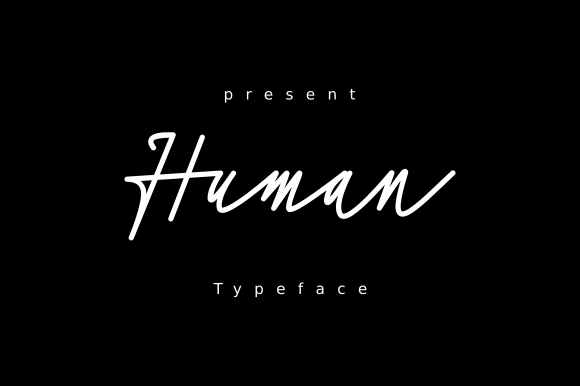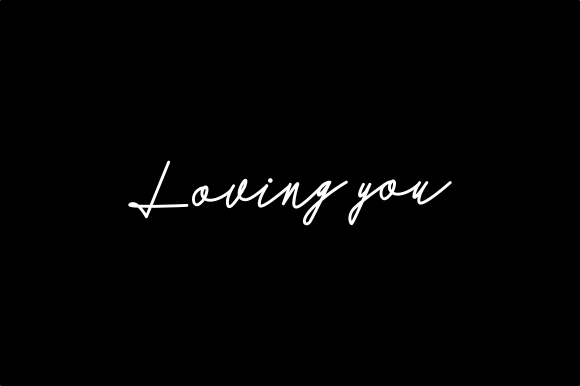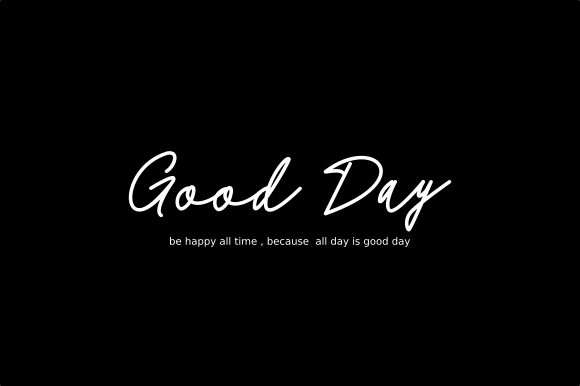
When Words Become Art
Have you ever stared at a blank page, searching for the perfect words to express the emotions that flood your heart? The struggle is real, especially when it comes to typography. But what if your words could speak for themselves, conveying the authenticity and vulnerability that makes them truly special? This is where Human Font comes in – a carefully crafted typeface designed to bring your words to life.
Human Font is more than just a font; it’s an experience that captures the essence of human emotion. With its sweet and heartfelt design, it’s the perfect choice for designers looking to add a touch of personality to their work. Whether you’re a writer, artist, or simply someone who appreciates the beauty of language, Human Font is a valuable addition to your creative toolkit.
Key Features of Human Font
- Unique Characteristic: Human Font features a unique, hand-drawn aesthetic that gives it a warm and inviting feel, making it perfect for use in creative and design-focused projects.
Human Font Review
I recently had the chance to work with the Human Font, and I must say it’s been an interesting experience. Here are my thoughts on what works well and what doesn’t.
- The Human Font has a unique, hand-drawn feel that can add a lot of character to your design.
- The font’s subtle imperfections make it feel more organic and less robotic than other fonts.
- The font family is well-rounded, with a variety of weights and styles to choose from.
- The Human Font can be difficult to read at small font sizes due to its irregularities.
- The font may not be suitable for use in body text or large blocks of text due to its busy, handwritten feel.
- The font’s imperfections can sometimes be distracting or overwhelming, especially in complex designs.
Overall, I think the Human Font is a great choice for designers who want to add a touch of personality to their designs. However, it may not be the best choice for every project. With careful use and consideration, the Human Font can be a valuable addition to your design toolkit.
Some tips for getting the most out of “Human Font” include:
- Using it for creative or artistic designs, such as typography or logo design.
- Applying it to text elements that require a unique or human-like touch.
- Experimenting with different font styles and combinations to achieve a desired effect.